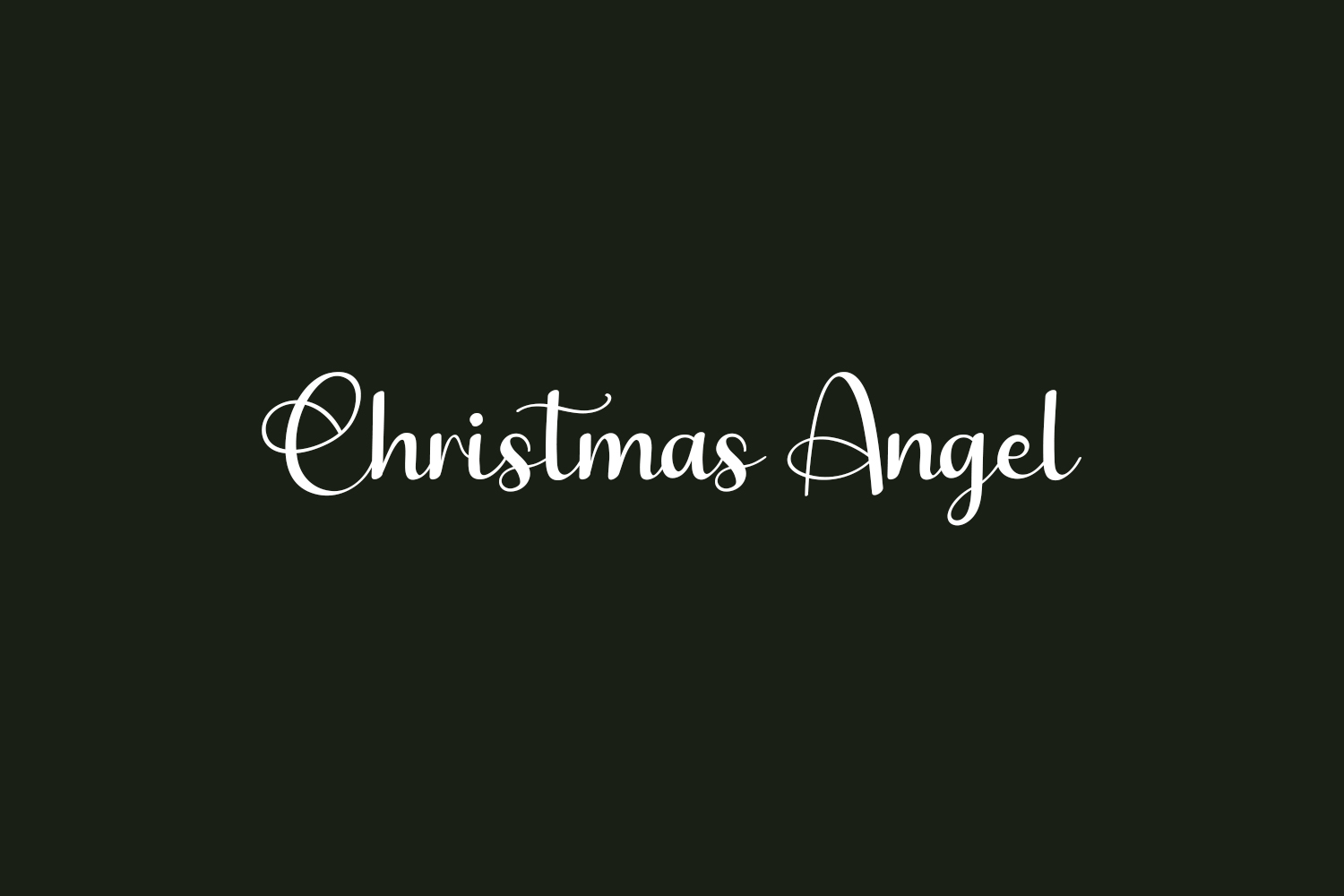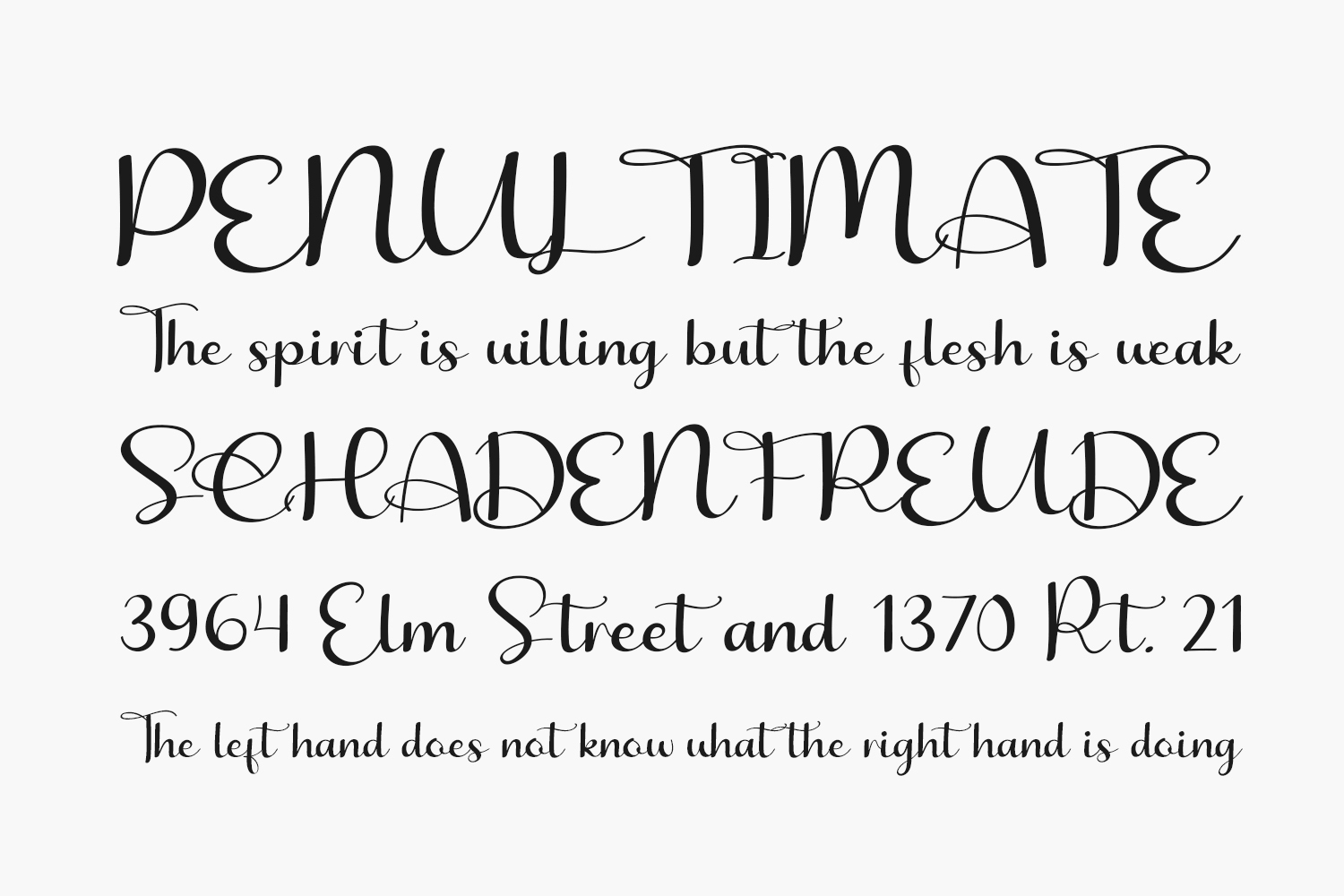
Introducing Christmas Angel Free Font, a meticulously crafted script font that strikes a perfect balance between delicacy and harmony. This font effortlessly emanates an air of elegance and class, making it an ideal choice for those in search of a stunning and rejuvenating aesthetic for their designs. Created with meticulous attention to detail, Christmas Angel Free Font breathes new life into your creative projects, infusing them with a captivating beauty that leaves a lasting impression. Experience the enchanting allure of this font and give your designs a touch of timeless elegance. Christmas Angel Free Font is free for personal use only. Please purchase the full version for commercial use.
Designed by Erik Studio